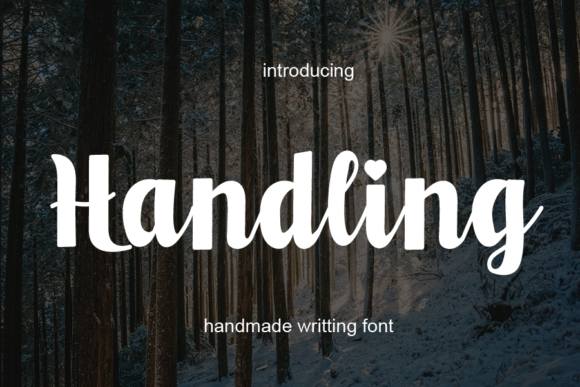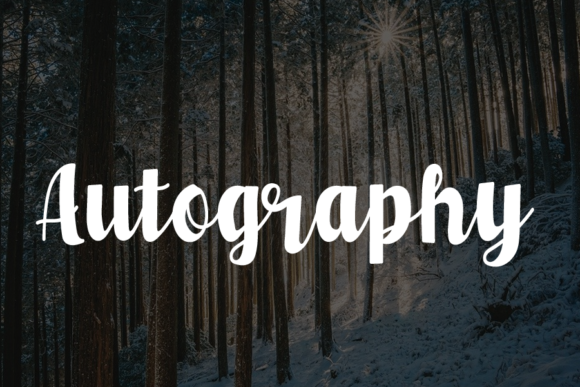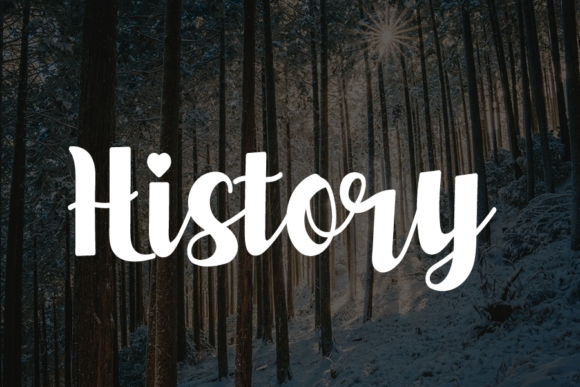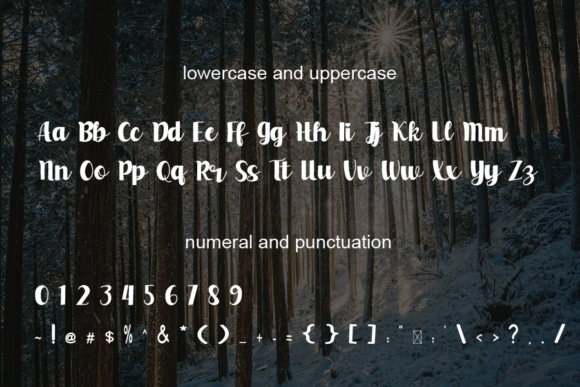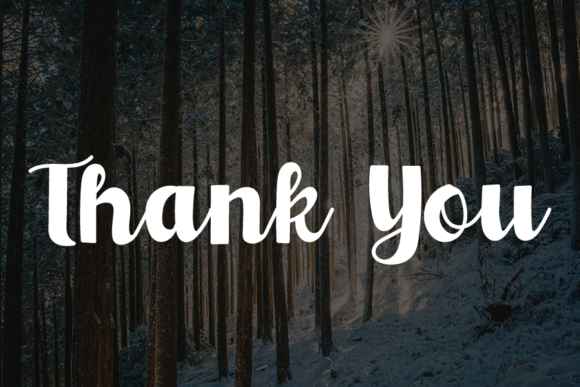
Handling Font
About Handling Font
Handling is a paint brushed, elegant handwritten font. It looks beautiful on a variety of designs requiring a personalized style, such as wedding invitations, thank you cards, weddings, greeting cards, logos and so on.